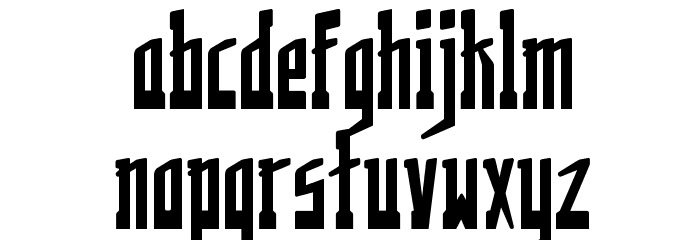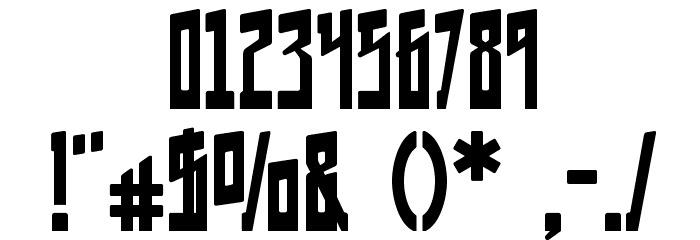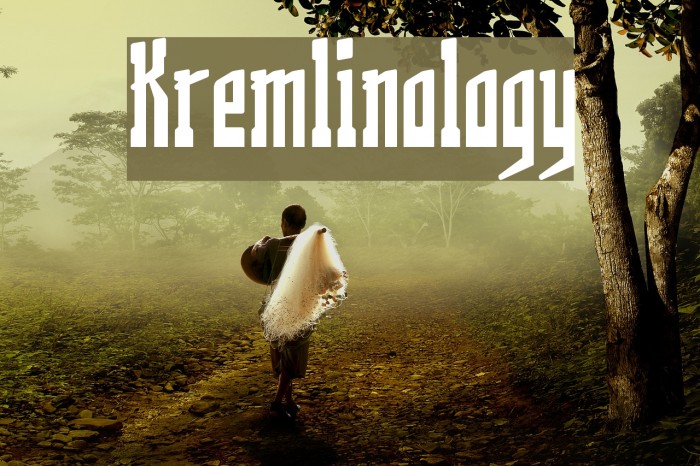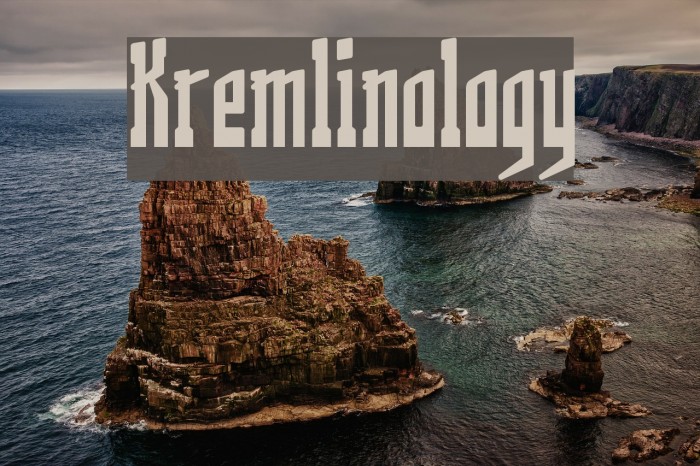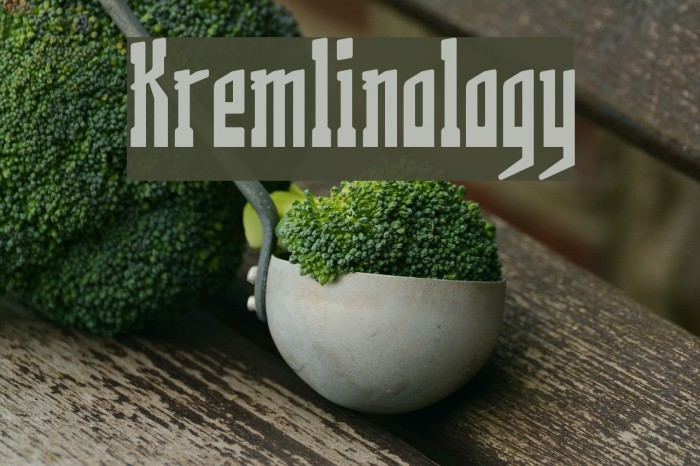
Kremlinology Font
This font features a bold and striking design with sharp, angular edges and a distinct geometric style. The uppercase letters are tall and narrow, giving a sense of height and authority, while the lowercase letters maintain a consistent width, ensuring readability. The numbers and special characters follow the same angular and geometric theme, making them stand out. The overall design is reminiscent of Eastern European or Soviet-era typography, giving it a unique and historical feel. This font is perfect for projects that require a bold statement or a touch of vintage flair.
A bold, angular font with a geometric, Eastern European style.
- Proposed Projects: Ideal for posters, branding, and editorial design that require a bold, historical aesthetic.
- Overall Style: Vintage